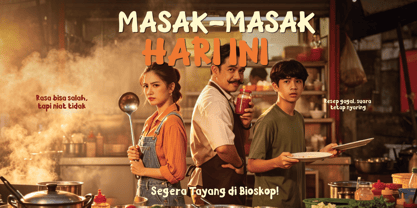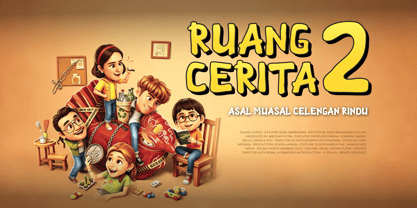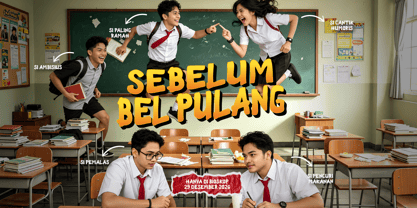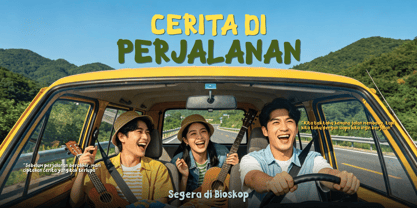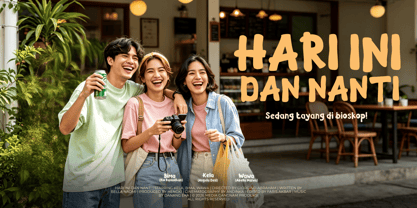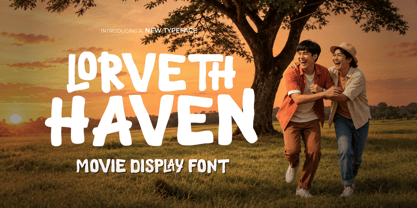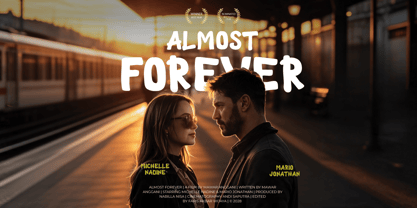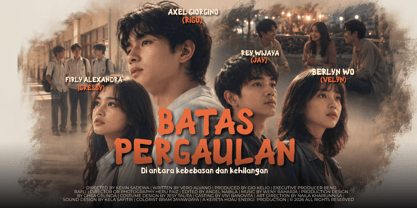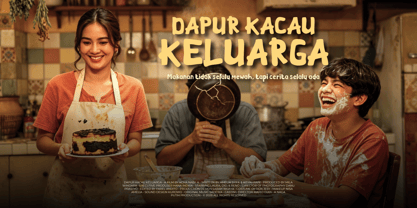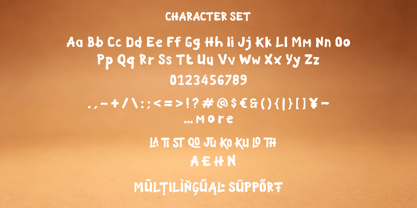
Lorveth Haven
The Lorveth Haven Font Family was designed by Lita Faolina and published by Product Type. Lorveth Haven contains 1 styles. More about this family
Lorveth Haven is a playful and expressive movie display font designed to bring a sense of adventure, happiness, and cinematic storytelling to your designs. With its bold handwritten style, organic shapes, and friendly character, this font is perfect for eye-catching movie titles, posters, headlines, and promotional artwork.
Inspired by the fun and energetic feeling of family adventures, travel stories, and outdoor exploration, Lorveth Haven works beautifully for children's movies, adventure films, travel documentaries, nature content, entertainment branding, and big screen promotions.
Its bold display style makes titles instantly noticeable while maintaining a warm, playful personality. Whether you're creating a movie poster, film title, streaming thumbnail, promotional campaign, documentary cover, or entertainment identity, Lorveth Haven adds a memorable handcrafted touch to your visuals.